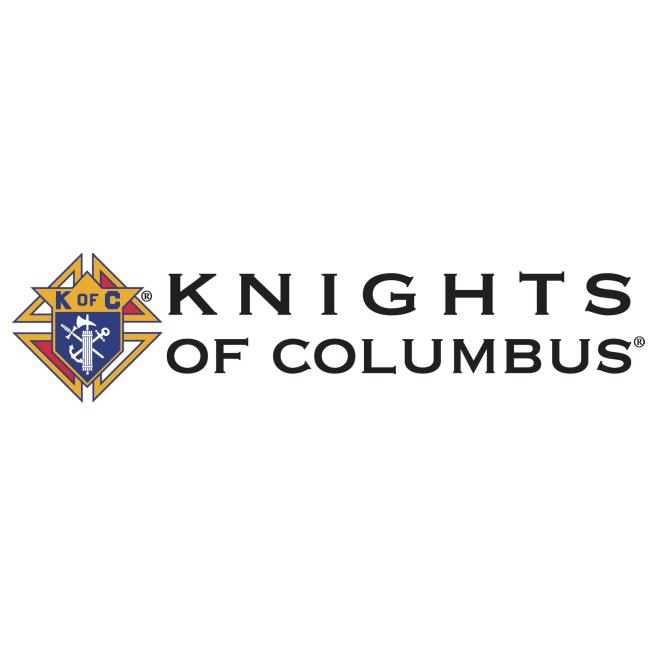
Knights of Columbus Font
Fonts in UseThe Knights of Columbus is a Catholic fraternal organization founded in 1882, dedicated to charitable work and community service. It is one of the largest Catholic organizations in the world, with over 2 million members in more than 16,000 councils around the globe.
The organization's logo uses Copperplate Gothic font, designed by Frederic Goudy and cut by American Type Founders in 1901. The Uncial font used for headers is Libra by Sjoerd Hendrik de Roos.